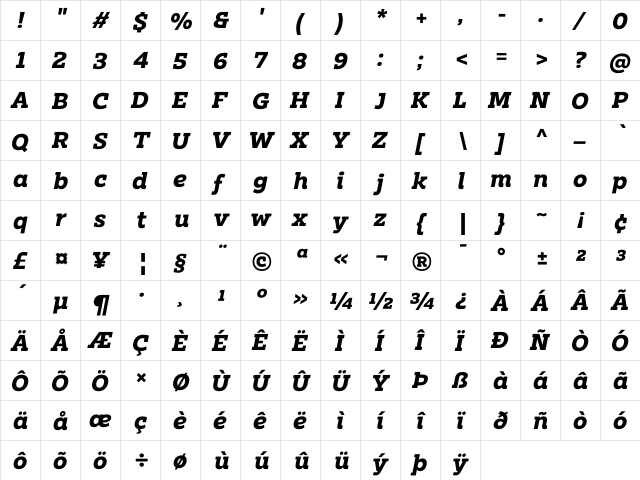
Clab Personal Use Bold Italic
| Designer | Eko Bimantara |
Design Context for Clab Personal Use Typeface
Clab Personal Use offers clean, dependable letterforms without strong stylistic allegiance, making it a practical choice for designers who need flexibility. Its italic angle brings a sense of urgency and motion to the letterforms. Its bold stroke weight gives it real presence on the page.